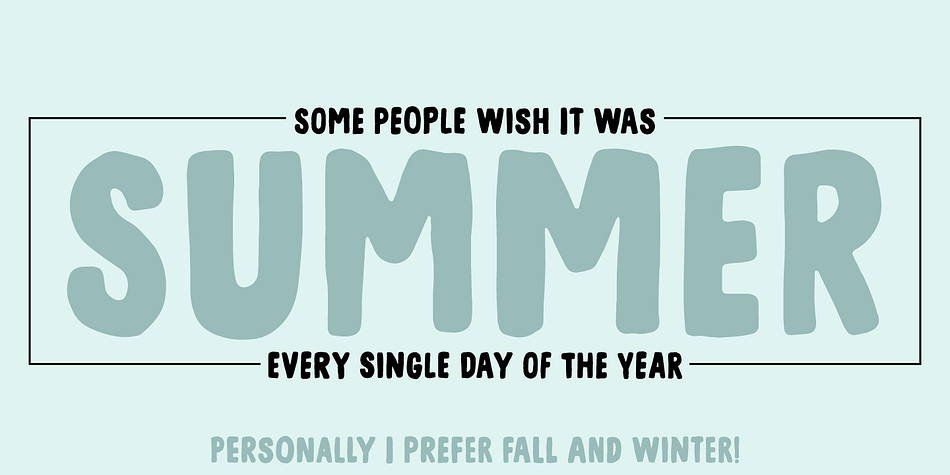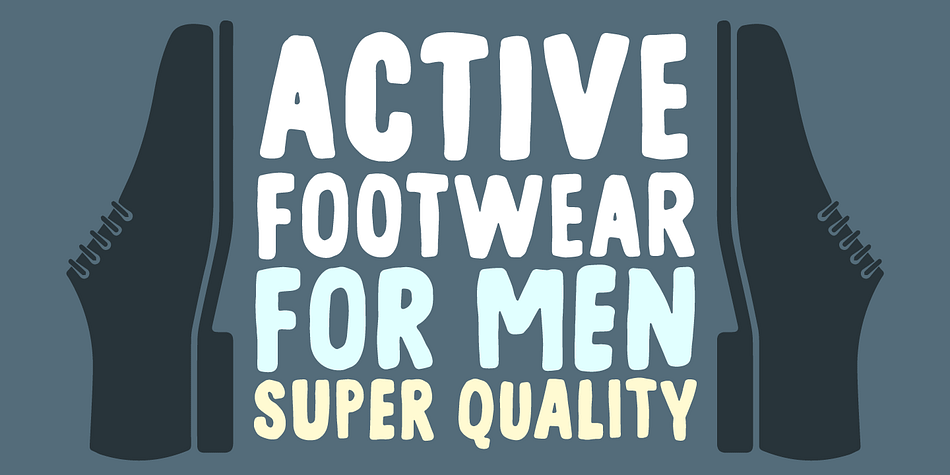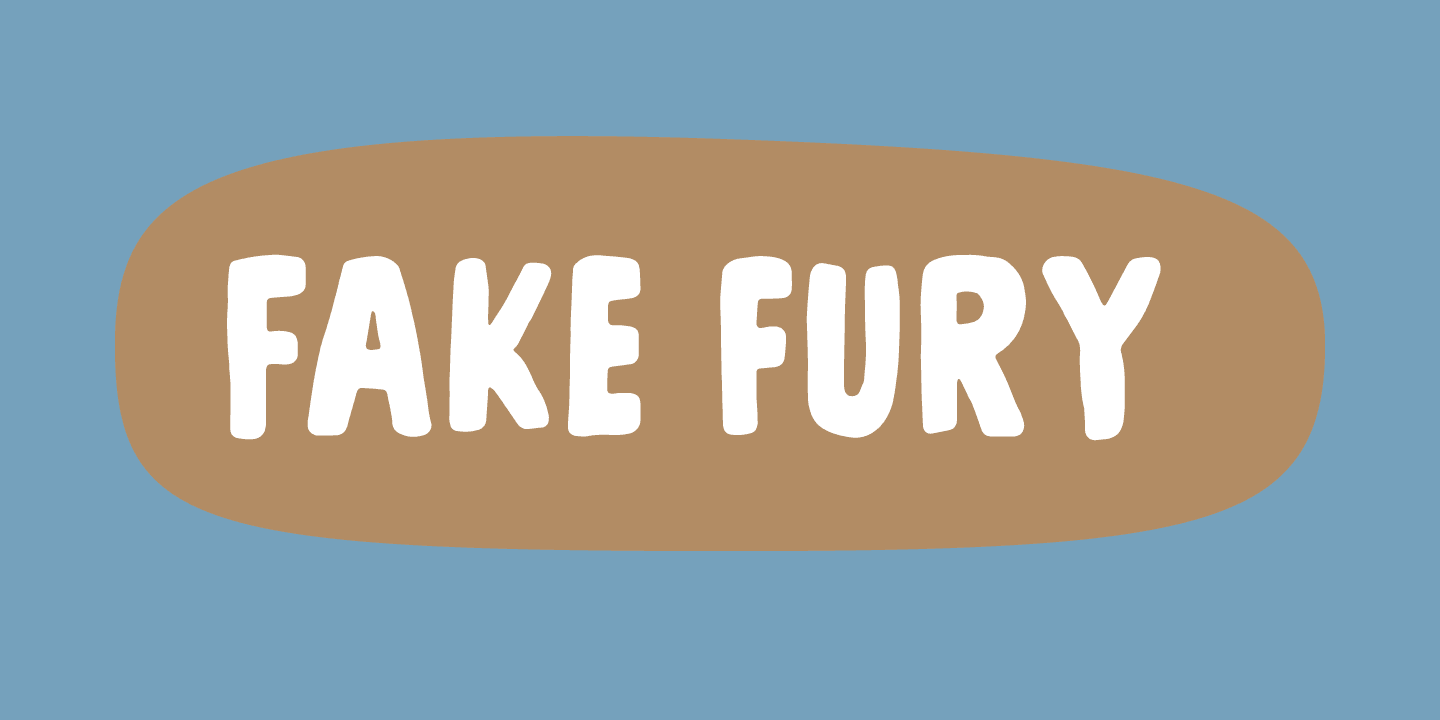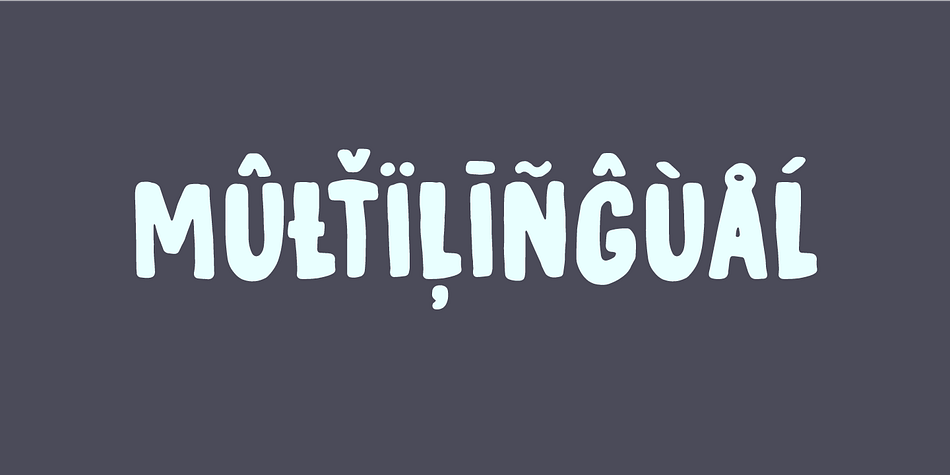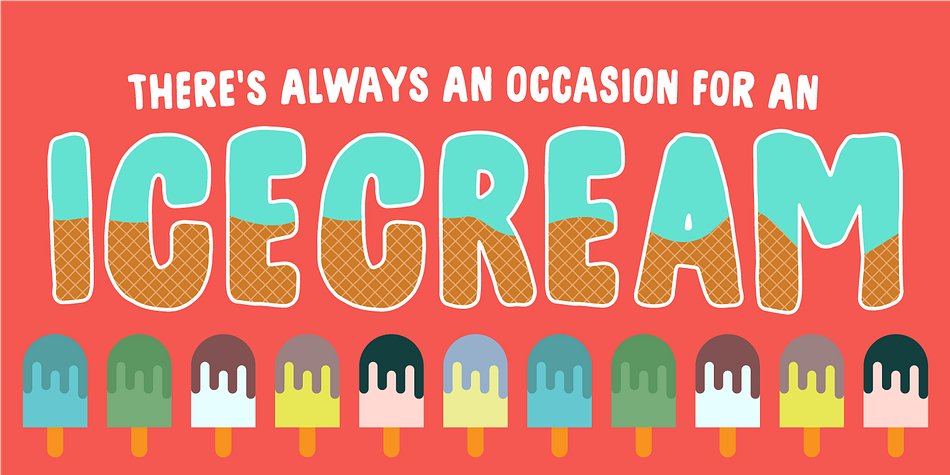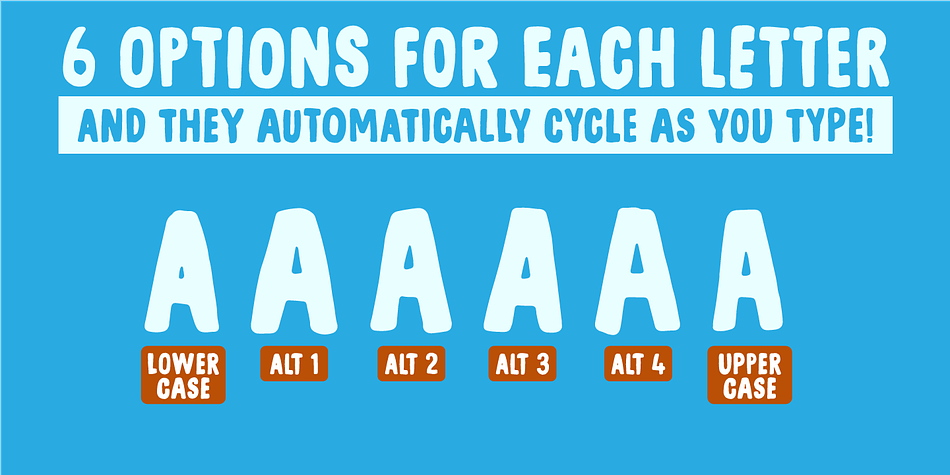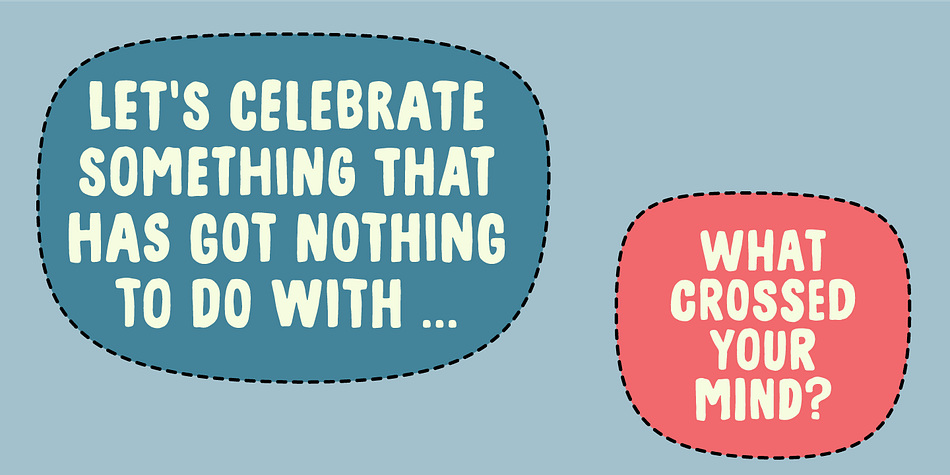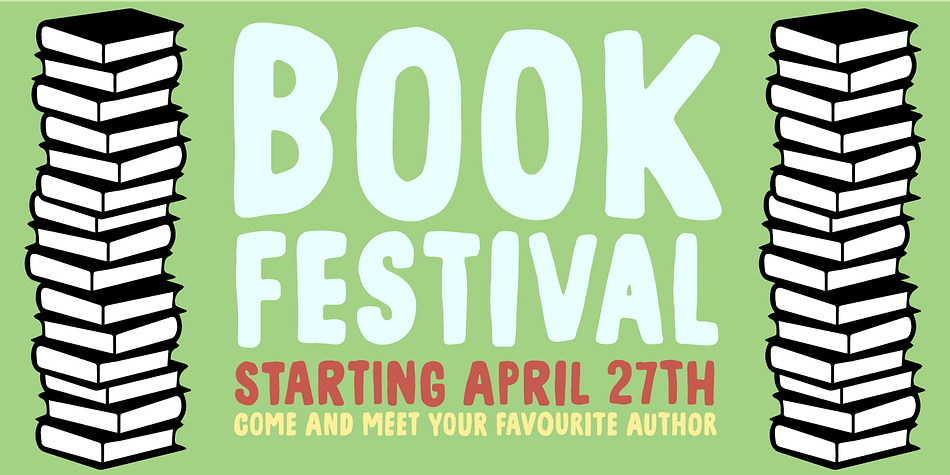
Designed by Jakob Fischer, Fake Fury is a hand display font family. This typeface has two styles and was published by Bogstav.
Actually there is nothing furious about this font. There are no sharp edges and absolutely nothing harmful at all. The name plays tricks on you, because it’s a cool laid back font with ounces of possibilities. I’d say you can use the Fake Fury font for posters, flyers, comics, invitations, commercials, toys, candy, clothing, packaging ... ahhh, the list goes on and on!
Each letter was carefully handdrawn and soften a bit with rounded edges. And each letter has a total of 6 different versions: upper- and lowercase, and then 4 alternate versions. And the magic happens AS you type, because the font is programmed to automatically cycle through all the different letter variations!